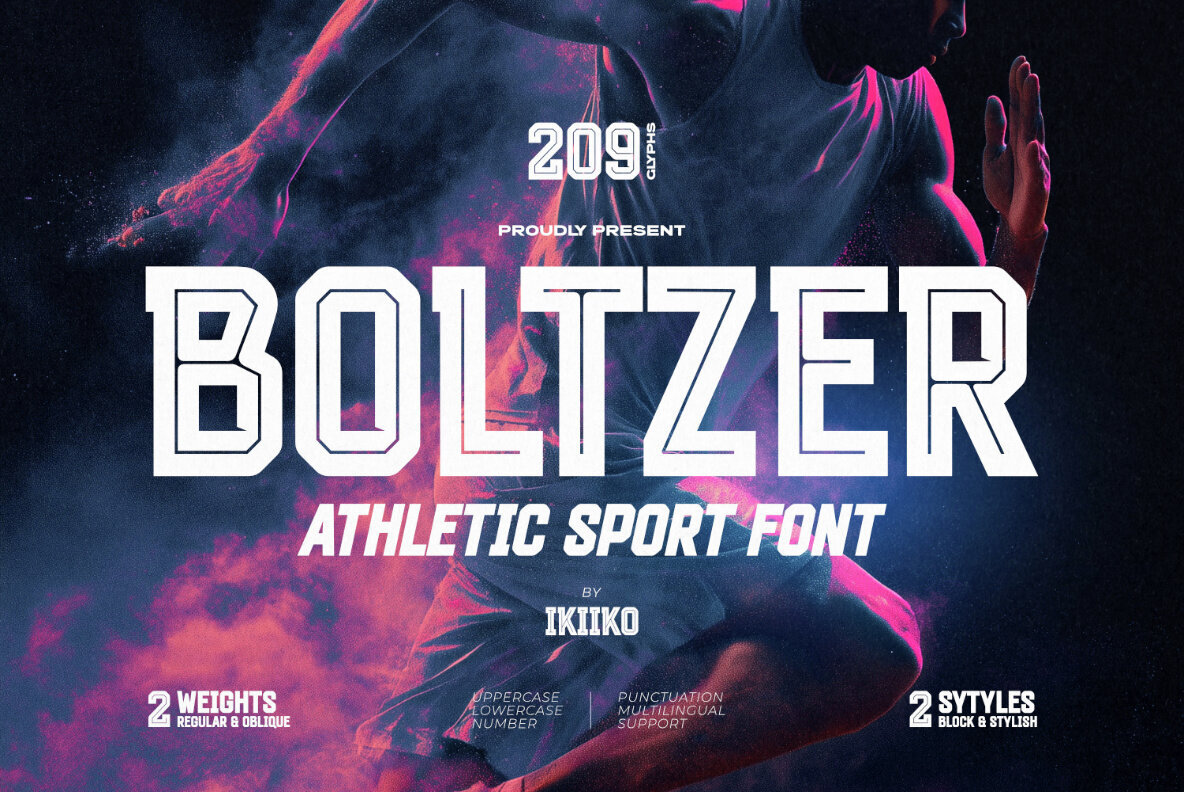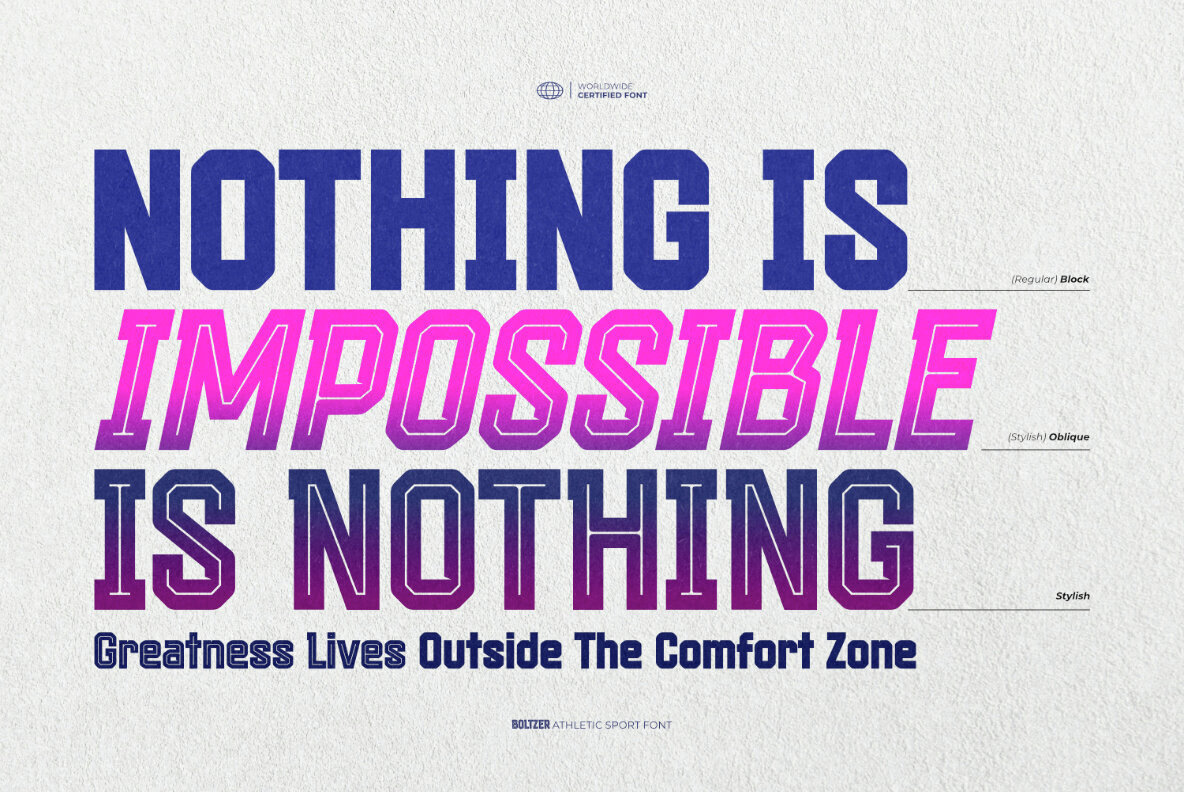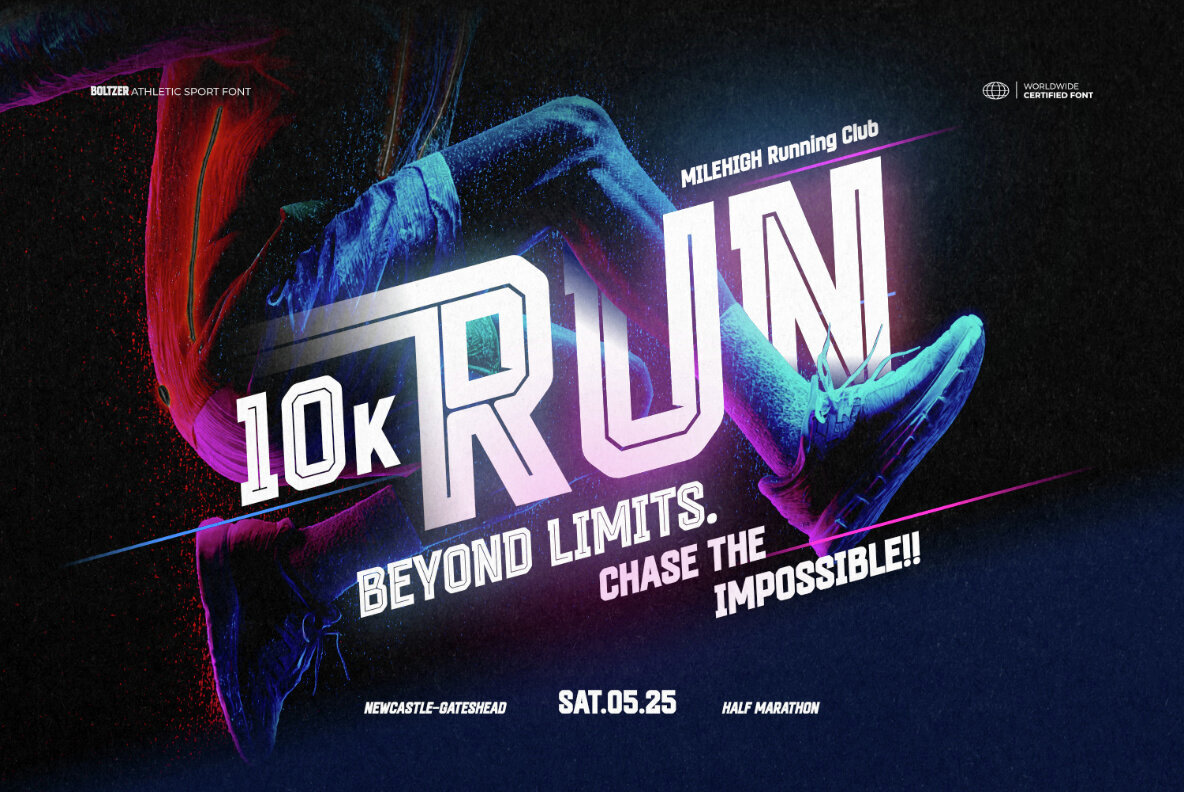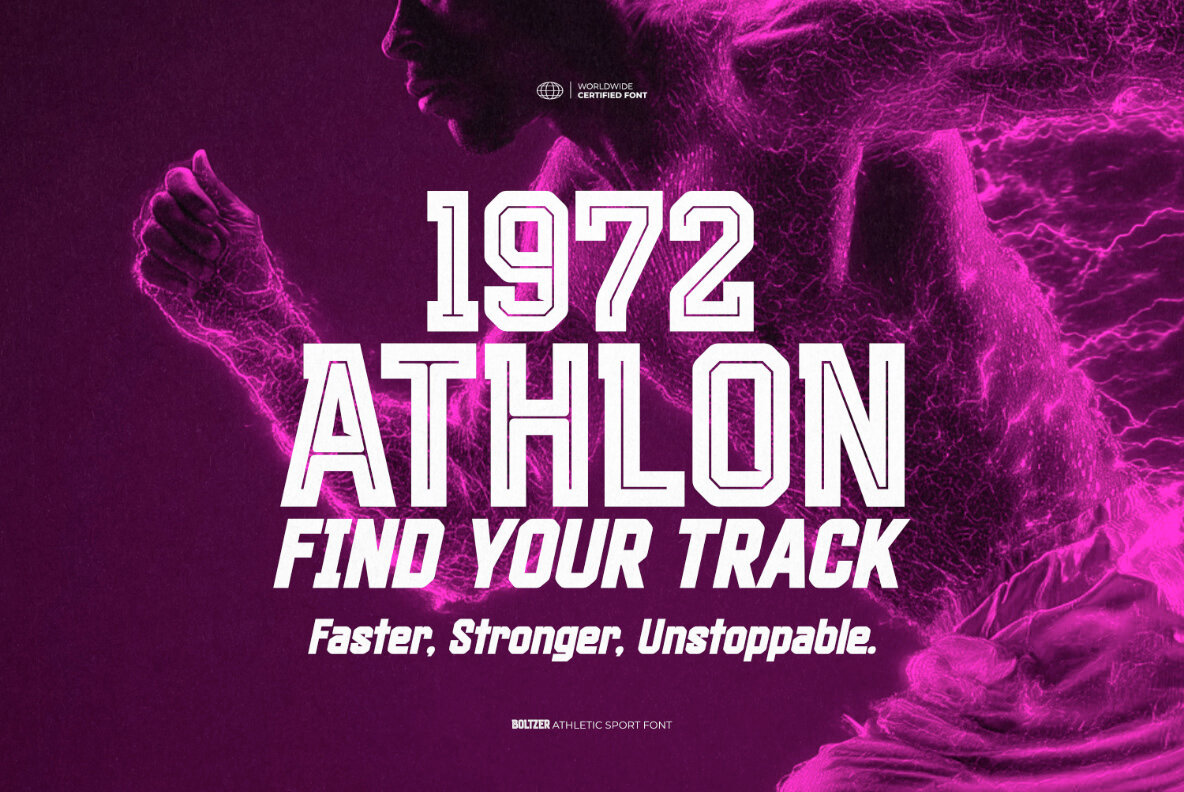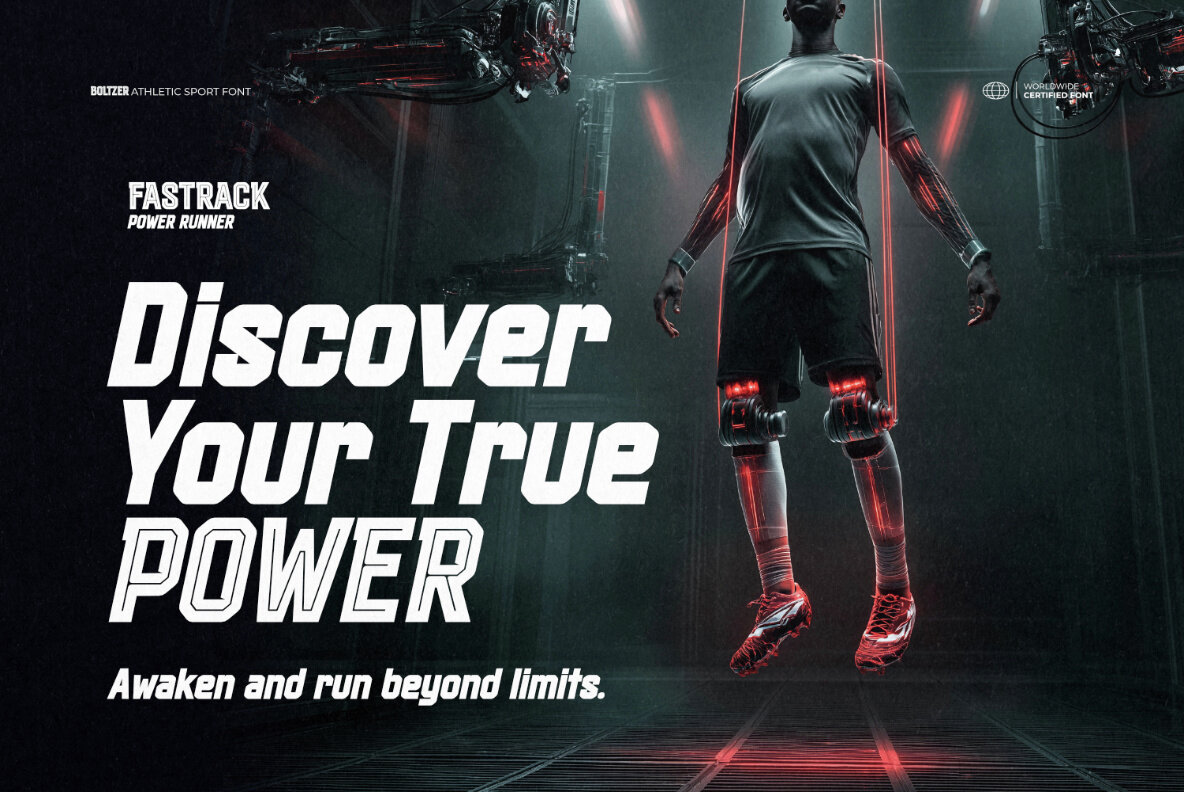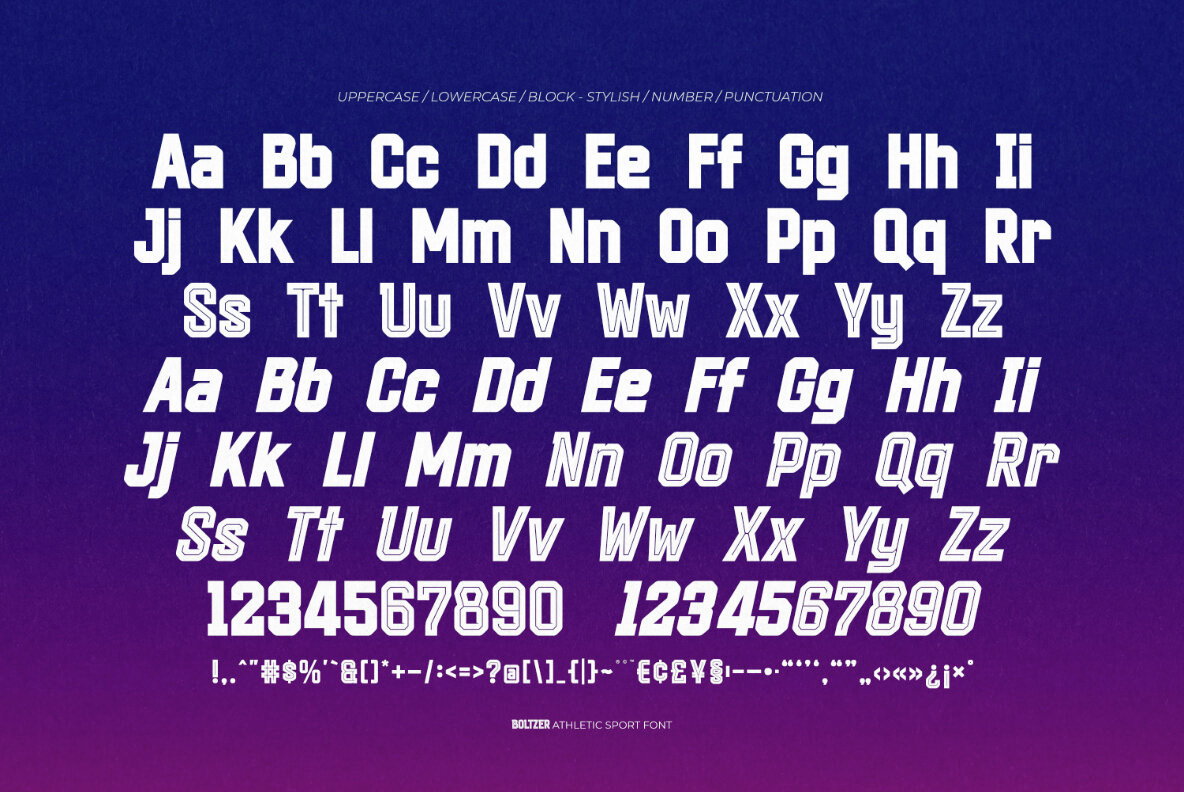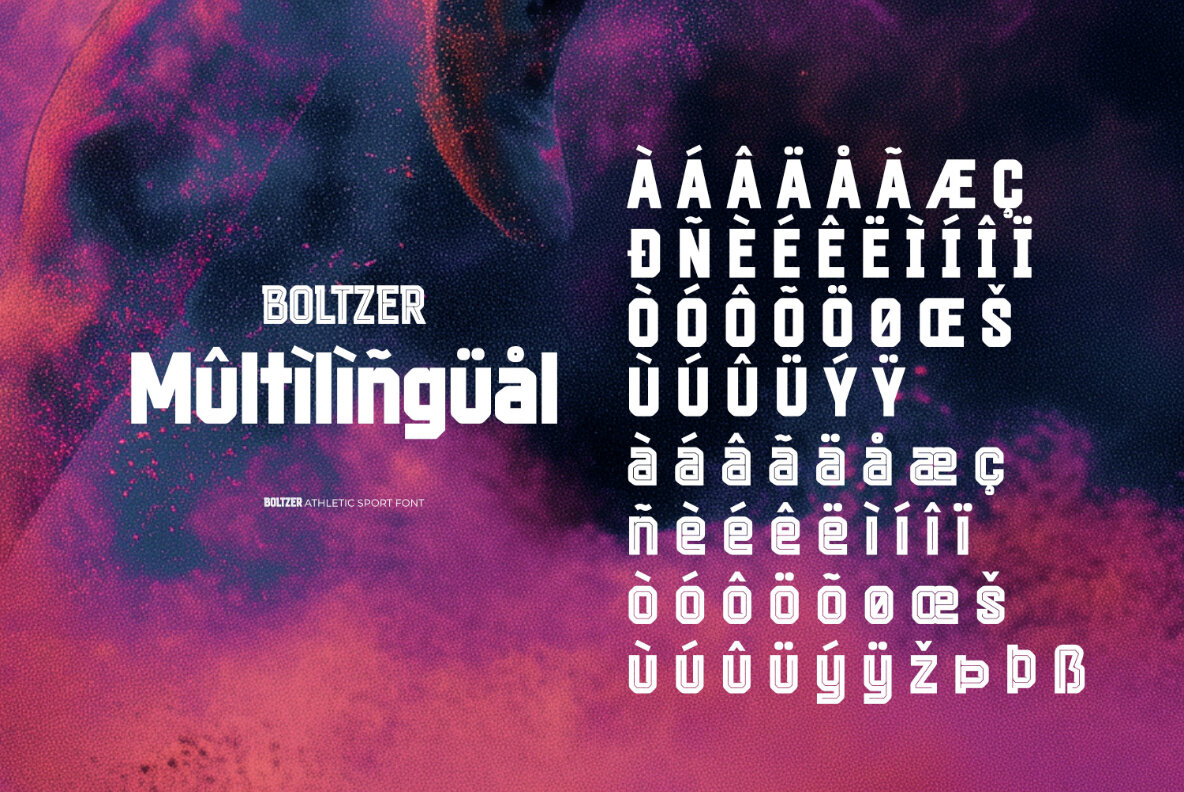
Boltzer Font
Boltzer is a bold and masculine font designed to supercharge your designs with a vibrant, athletic vibe. Inspired by both classic college lettering and modern urban style, it seamlessly combines strength and elegance into one striking typeface. This font is ideal for sports logos, team branding, varsity apparel, and graphics for energetic events, making every design exude athletic energy and unwavering confidence. Boltzer offers two distinct styles: Block for a classic look and Stylish, which features dynamic line details. Each style is available in Regular and Oblique weights, providing flexibility whether you're aiming for a traditional or contemporary aesthetic. Whether you're crafting a team logo, a college poster, or an urban sport-themed design, Boltzer's commanding presence transforms your typography into a lively expression of sportiness. This versatile font is perfect for a wide range of applications, from sports club logos and event posters to apparel branding, magazine covers, and website layouts. It's the ideal choice for anyone looking to add a powerful text overlay to any background image.Boltzer Athletic Sport Font